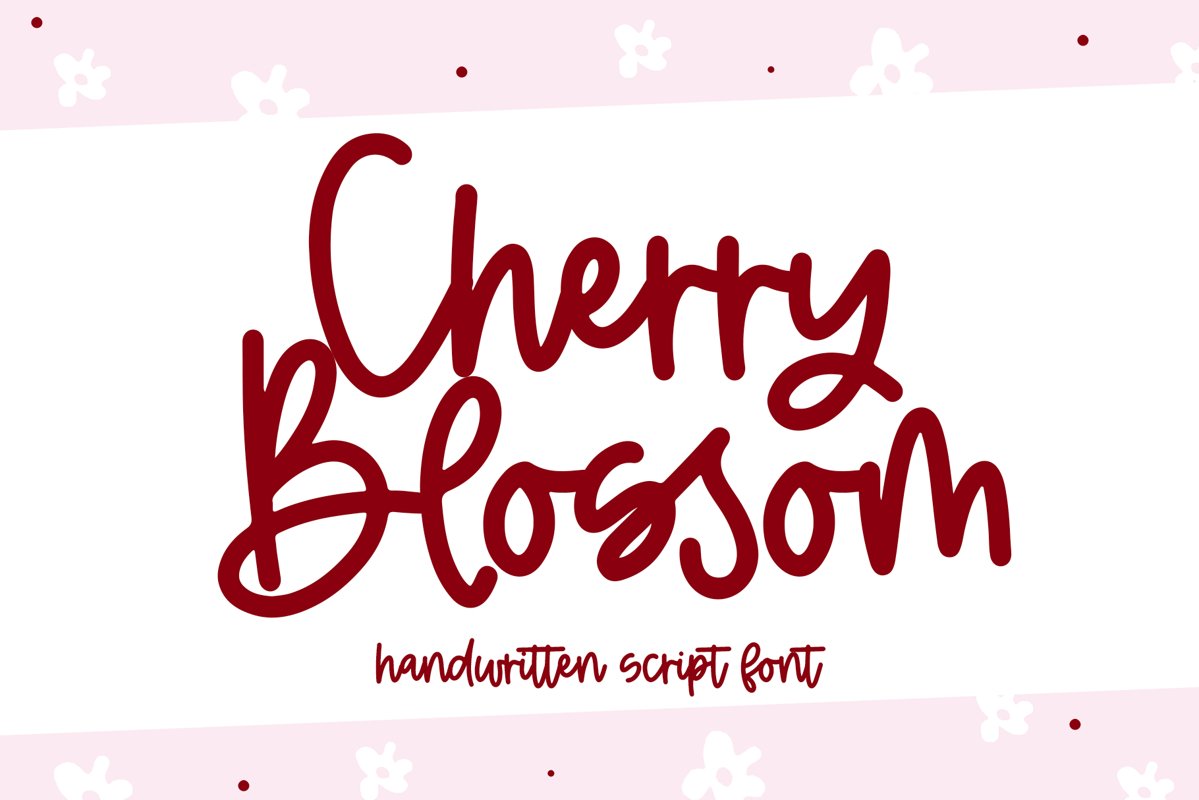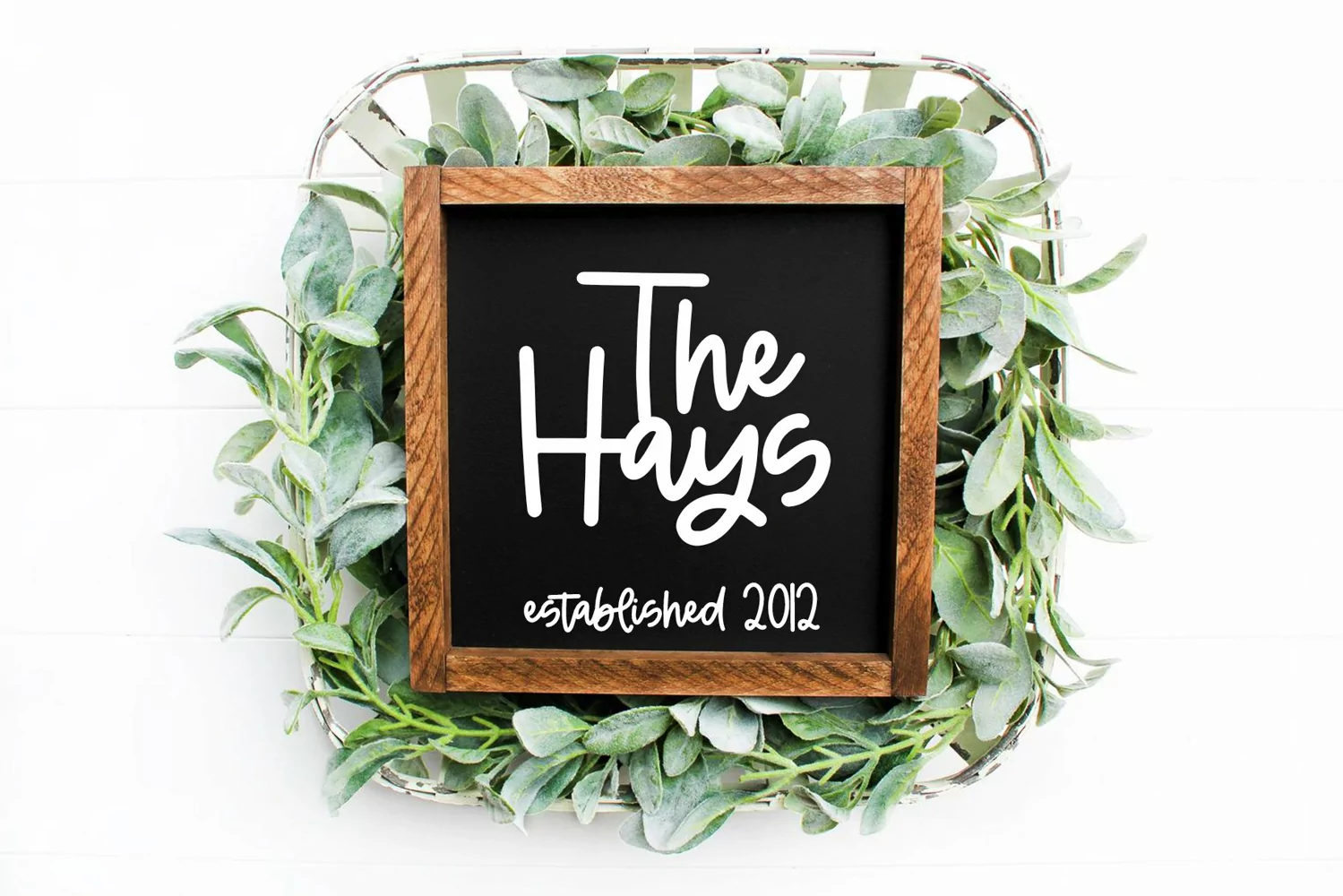
Cherry Blossom is a fun handwritten script font!
This font is perfect for quotes, shirt designs, websites, branding, children's designs, svg designs, blogs, logos, invitations and more!